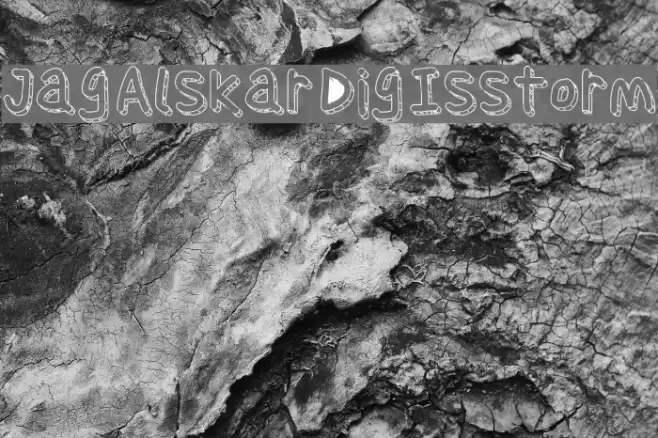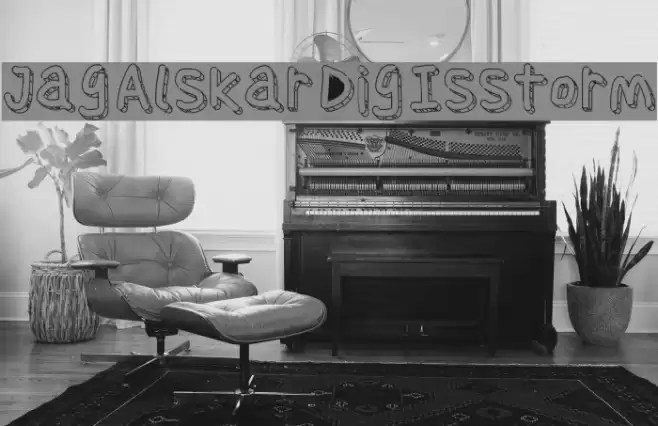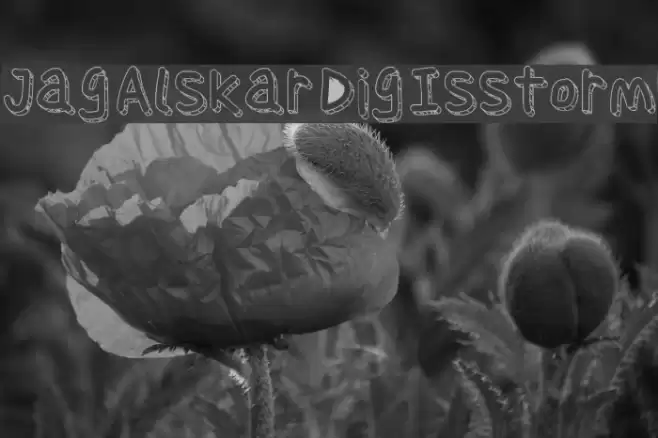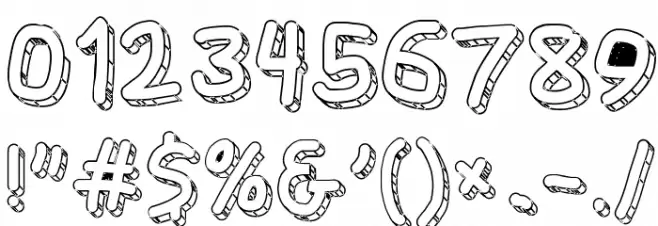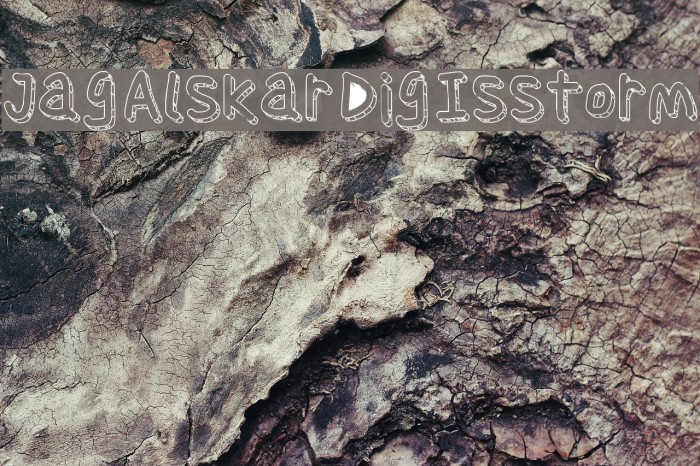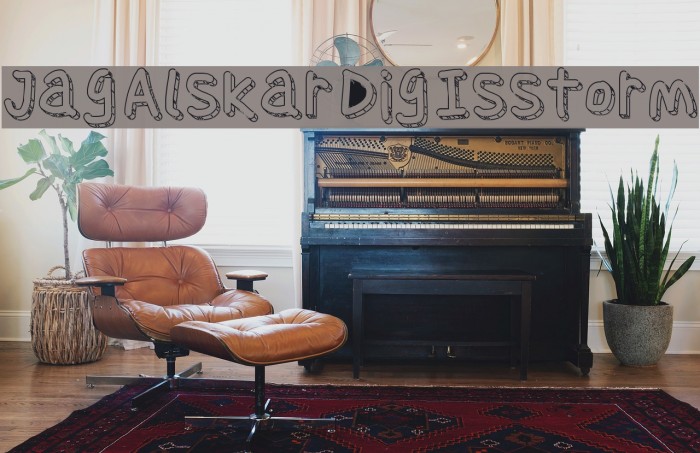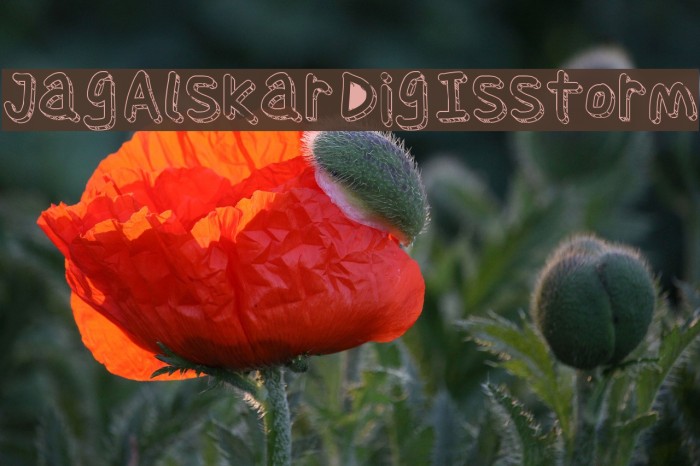
Jag Alskar Dig Isstorm Font
Jag Alskar Dig Isstorm Description
This playful and whimsical font features a hand-drawn style with a unique, sketch-like appearance. Each character is outlined with a bold, uneven stroke, giving it a dynamic and lively feel. The letters are slightly irregular, adding to the charm and informal nature of the design. The font includes both uppercase and lowercase letters, numbers, and a variety of special characters. The overall look is reminiscent of doodles or comic book lettering, making it ideal for projects that require a fun and casual aesthetic.
A playful, hand-drawn font with a sketch-like, comic book style from Uncategorized fonts.
- Proposed Projects: Ideal for children's books, comic strips, playful branding, and casual invitations.
- Overall Style: Whimsical, Playful